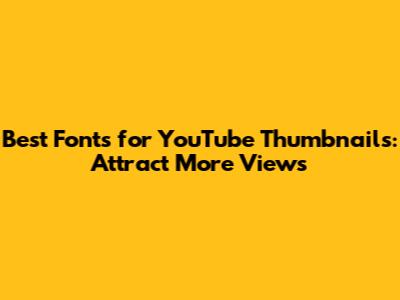
- Impact: A classic choice for a reason! Impact is big, bold, and impossible to ignore. It's perfect for making a statement and grabbing attention. This font is especially effective when you want to convey excitement or urgency.
- Arial Black: A solid, reliable option that's widely available. Arial Black is a heavier version of Arial, making it more suitable for thumbnails where readability is key. Its simplicity ensures that your message is easily understood.
- Bebas Neue: A popular choice for its clean lines and modern feel. Bebas Neue is tall and condensed, allowing you to fit more text into a smaller space without sacrificing readability. It's a great option for titles that need to be concise and impactful.
- Montserrat: A versatile font that works well in a variety of styles. Montserrat is clean, modern, and highly readable, making it a great choice for thumbnails that need to look professional and approachable. It's also available in a variety of weights, giving you plenty of options to choose from.
- Roboto Slab: A modern serif font that's both readable and stylish. Roboto Slab has a clean, geometric design that makes it easy to read, even on small screens. It's a great option for thumbnails that need to look both professional and approachable.
- Playfair Display: An elegant font that adds a touch of sophistication to your thumbnails. Playfair Display is a great choice for thumbnails that need to convey a sense of luxury or elegance. However, it's important to use it sparingly, as it can be difficult to read at small sizes.
- Arvo: A slab-serif font that's bold and impactful. Arvo has a strong, geometric design that makes it highly readable, even on small screens. It's a great option for thumbnails that need to grab attention and make a statement.
- Luckiest Guy: This font is all about fun! It’s got a hand-drawn feel and a bouncy baseline that screams excitement. If your video is about something silly or entertaining, this font is a great choice.
- Bangers: Inspired by comic books, Bangers is bold, energetic, and full of character. It's perfect for thumbnails that need to grab attention and convey a sense of action or excitement.
- Bubblegum Sans: As the name suggests, this font is bubbly, friendly, and inviting. It's a great option for thumbnails that need to look approachable and fun.
- Amatic SC: A hand-drawn font that's both quirky and readable. Amatic SC is a great option for thumbnails that need to look personal and approachable. It's also a good choice for titles that need to be concise and impactful.
- Permanent Marker: This font looks like it was written with a permanent marker, giving it a bold and edgy feel. It's perfect for thumbnails that need to grab attention and convey a sense of urgency or excitement.
- Pacifico: A smooth and flowing script font that's both elegant and readable. Pacifico is a great option for thumbnails that need to look sophisticated and stylish. It's also a good choice for titles that need to be easy to read.
- Contrast is Key: Make sure your font color contrasts strongly with your background. White text on a dark background or dark text on a light background usually works best. Avoid using colors that are too similar, as this can make your text difficult to read.
- Size Matters: Your font needs to be large enough to be easily readable, even on small screens. Test your thumbnail on different devices to make sure the text is clear and legible. If necessary, increase the font size or choose a different font that is easier to read.
- Limit Your Fonts: Stick to one or two fonts per thumbnail. Using too many fonts can make your thumbnail look cluttered and unprofessional. Choose one font for your headline and another for your supporting text, if necessary.
- Kerning and Leading: Pay attention to kerning (the space between letters) and leading (the space between lines). Adjusting these settings can improve the readability of your text and make your thumbnail look more polished.
- Use Font Pairing: If you're using two fonts, make sure they complement each other. A good rule of thumb is to pair a bold sans-serif font with a more delicate serif font, or vice versa. Avoid pairing fonts that are too similar, as this can make your thumbnail look bland.
- Maintain Consistency: Use the same fonts across all of your thumbnails to build brand recognition. When viewers start to associate a certain font with your videos, they'll be more likely to click on them.
- Canva: A super popular online design tool with tons of fonts and templates. Canva makes it easy to create professional-looking thumbnails, even if you don't have any design experience. It offers a wide variety of fonts, graphics, and templates to choose from, as well as tools for adjusting the size, color, and placement of your text.